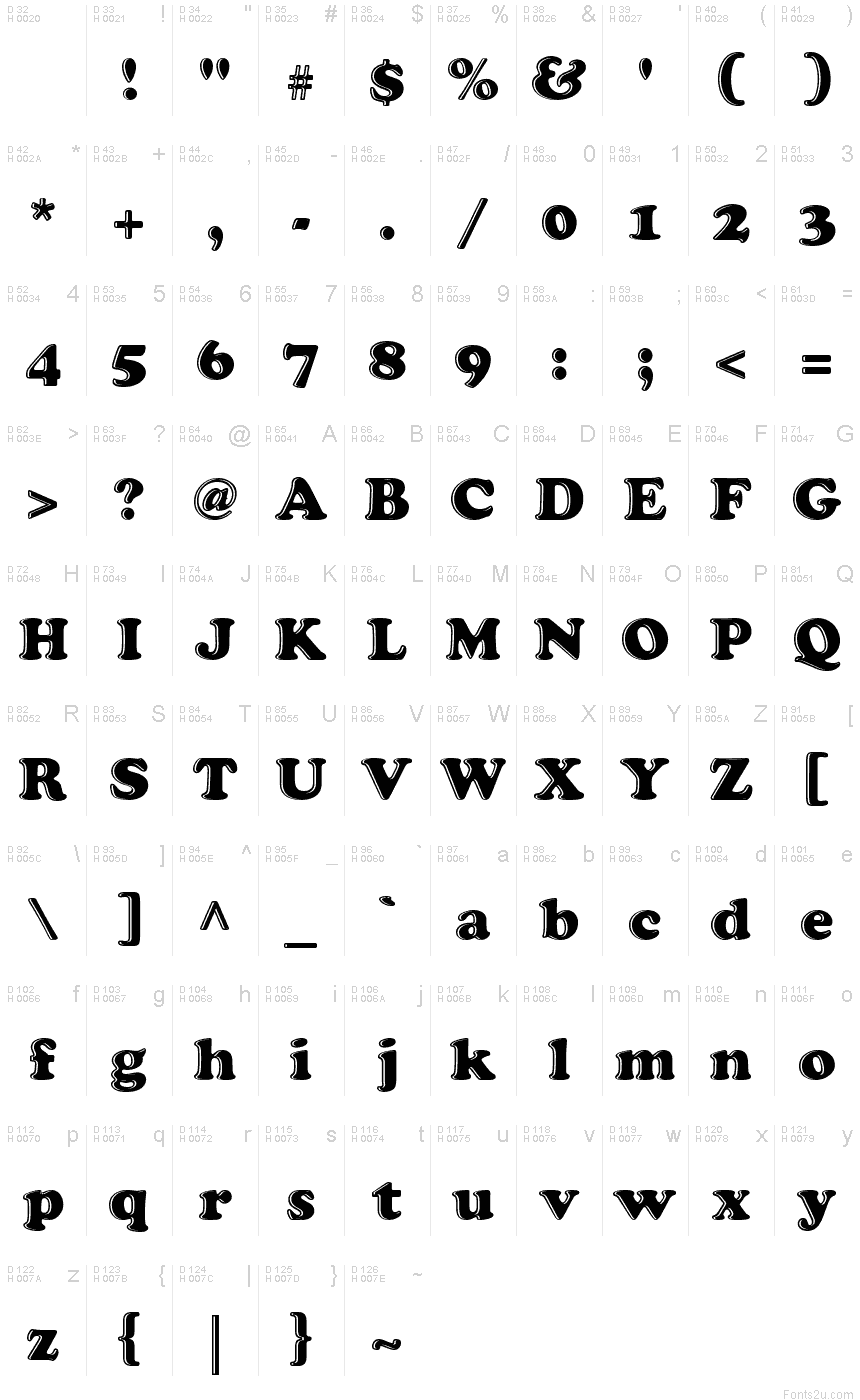
Grease
Grease font by Rafael Dinner is a free decorative display font that oozes retro attitude, like wet ink poured into 1950s jukebox lettering. Its chunky, swollen curves and glossy, almost oily highlights feel straight off a neon diner sign or a rock‑and‑roll record sleeve, giving headlines a loud, sticky presence that’s impossible to ignore. The letters pack tightly together, creating a bold, rhythmic word shape that reads fast even at wild sizes.
Using Grease, you can crank up the nostalgia on movie-night posters, rock & roll flyers, burger-joint menus, vintage-style logos, album covers, or bold t‑shirt graphics. This free font shines when you let it go big and loud, then support it with a clean, narrow sans-serif for body text so the greasy, inky forms stay center stage.